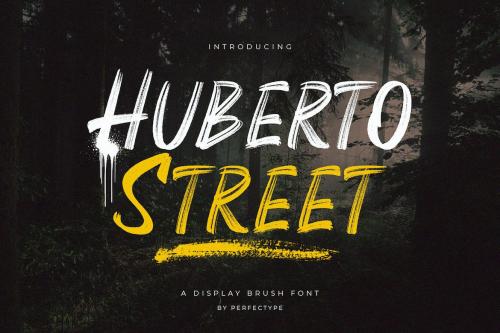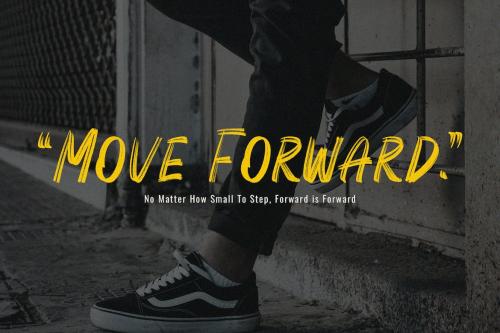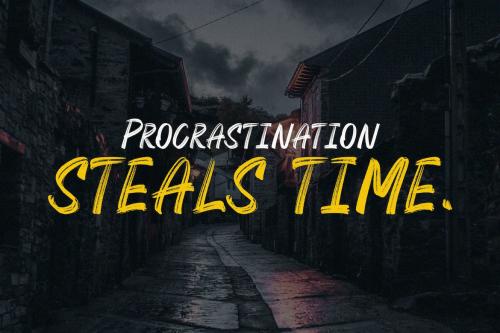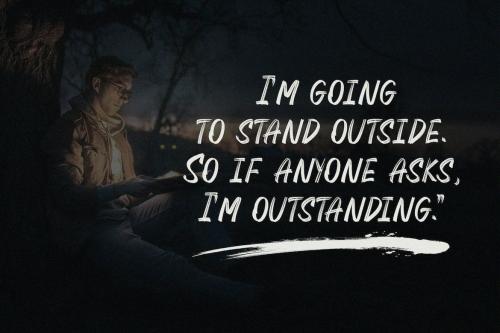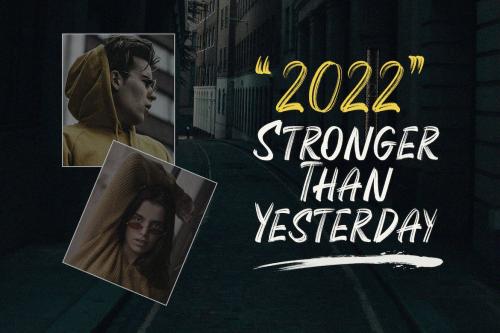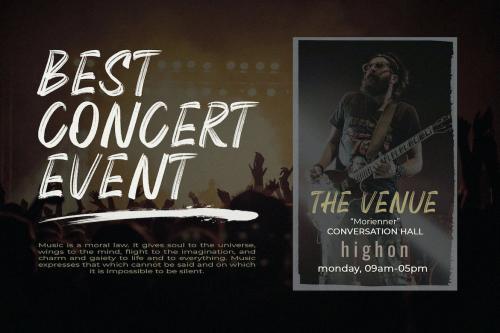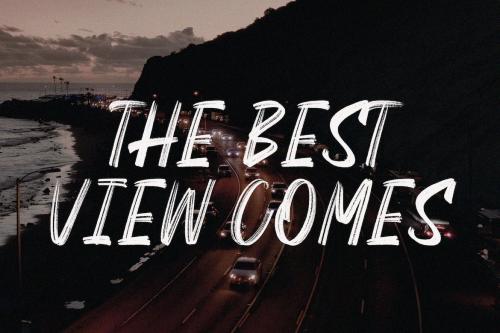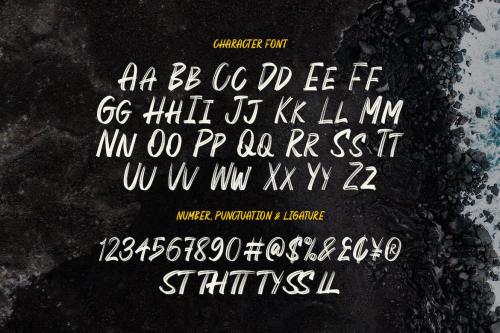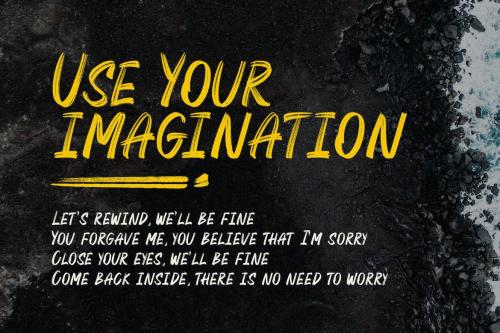
胡安索普街快速字体
Huberto Street rush Font
**Huberto Street** is a supercharged brush font style, street-wise brush font bursting with energy. With extra attention to quick strokes and sharp details. This font is perfect for challenging jobs, titles, t-shirts, websites, hoodies, clothing, headline, logotype, branding, advertising, event, and various print and digital media with energy.